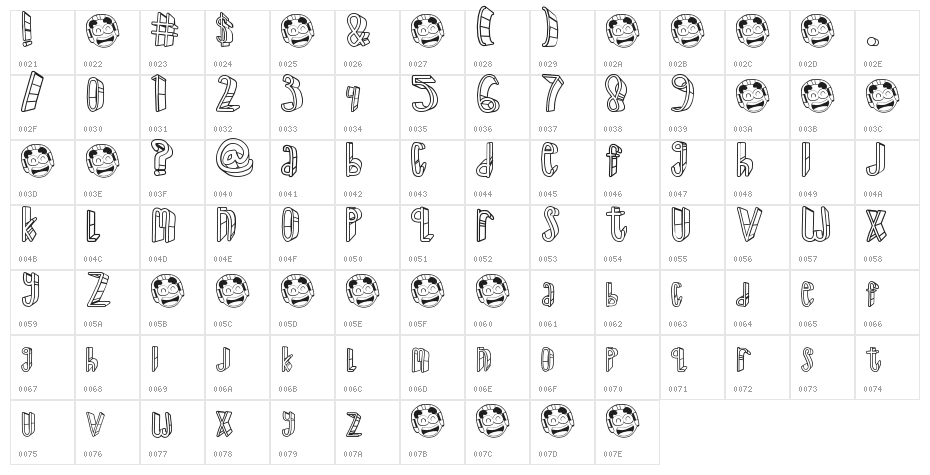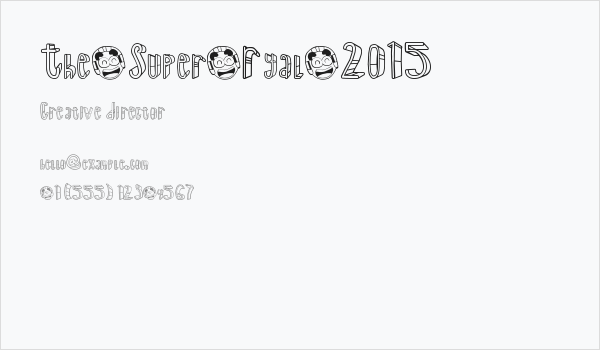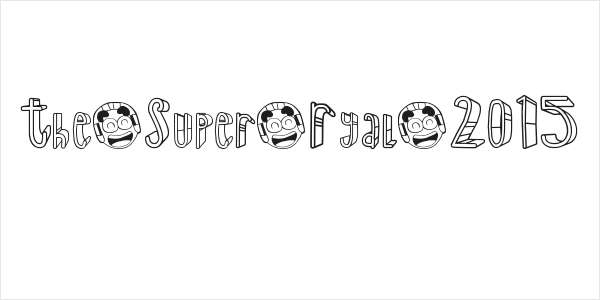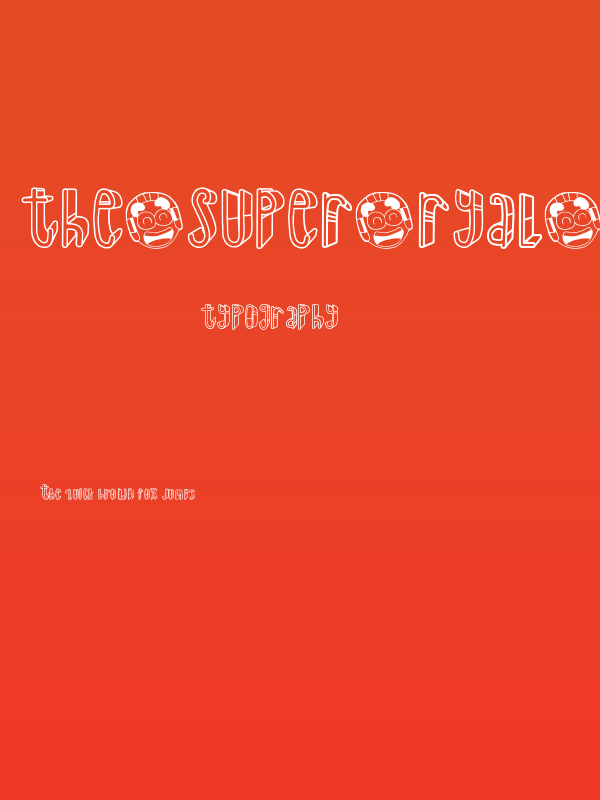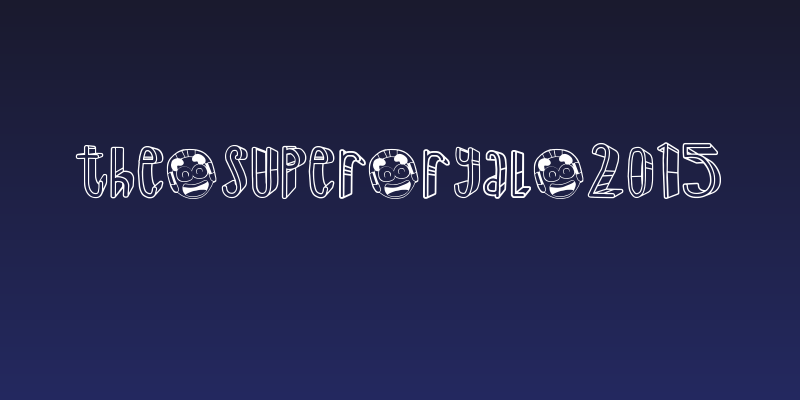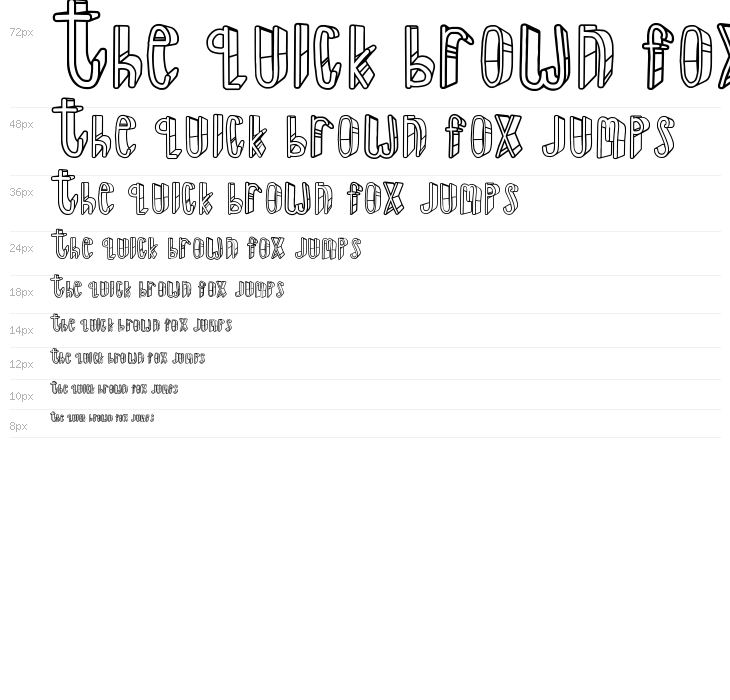
The-Super-Ryal-2015 Font
The-Super-Ryal-2015 Description
This font features a unique 3D effect with a bold outline and shadow, giving it a striking and modern appearance. The characters are uniformly designed with a consistent thickness, creating a cohesive look across all letters and numbers. The font's playful yet structured style makes it stand out, with each character maintaining a clear and distinct form. The shadow effect adds depth, making it suitable for eye-catching designs. The overall design is clean, with a slight geometric influence, making it versatile for various creative projects.
| Proposed Projects | Ideal for posters, logos, headlines, and any design requiring a bold statement. |